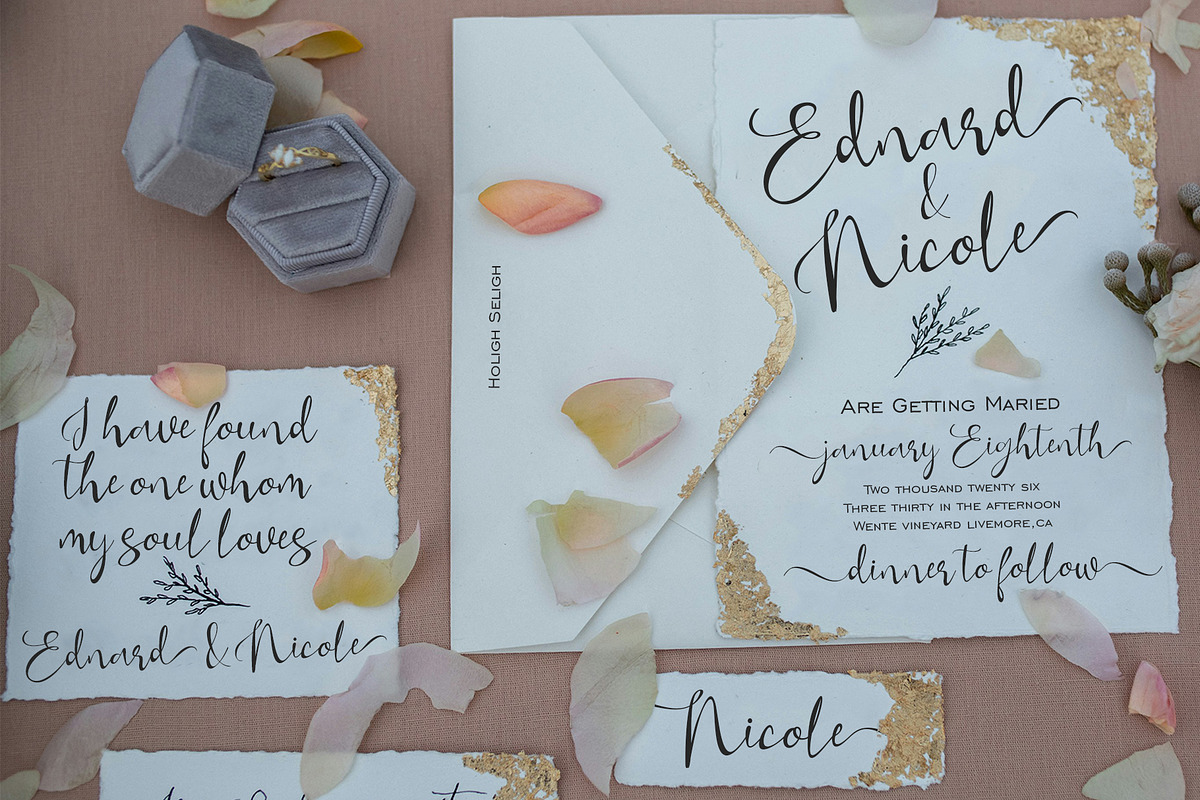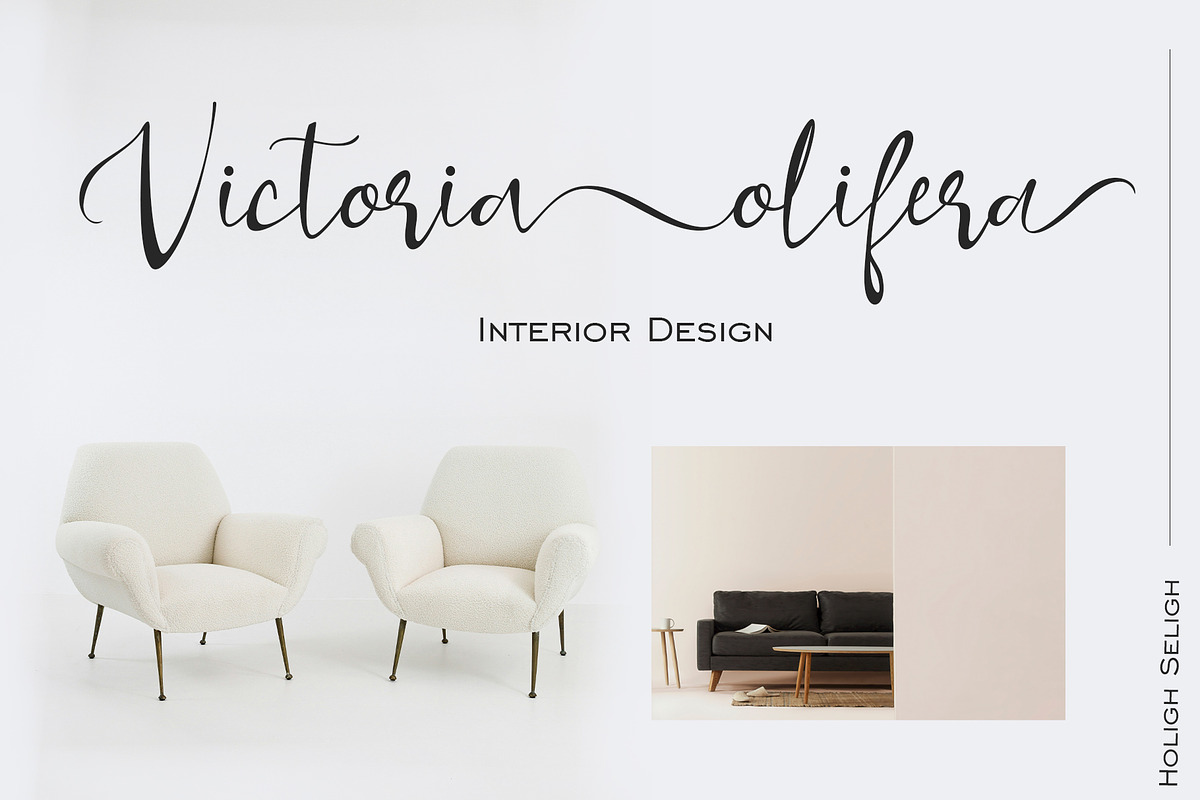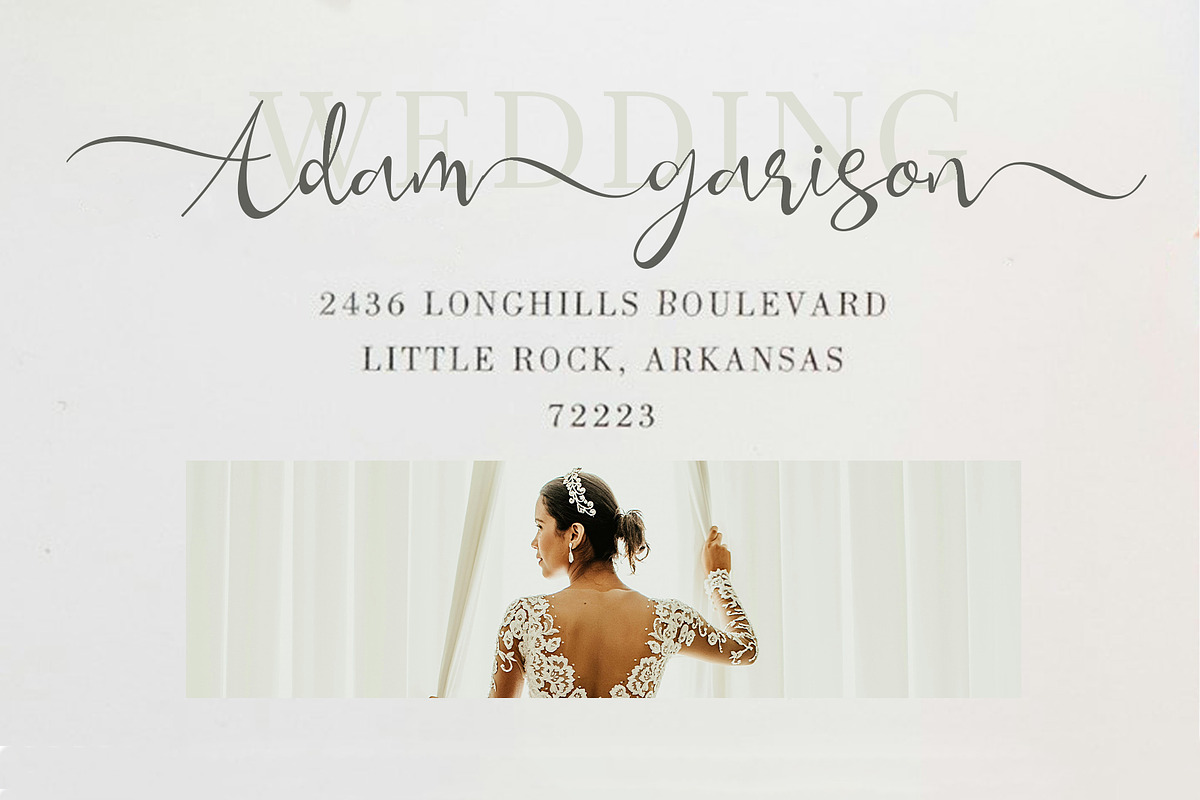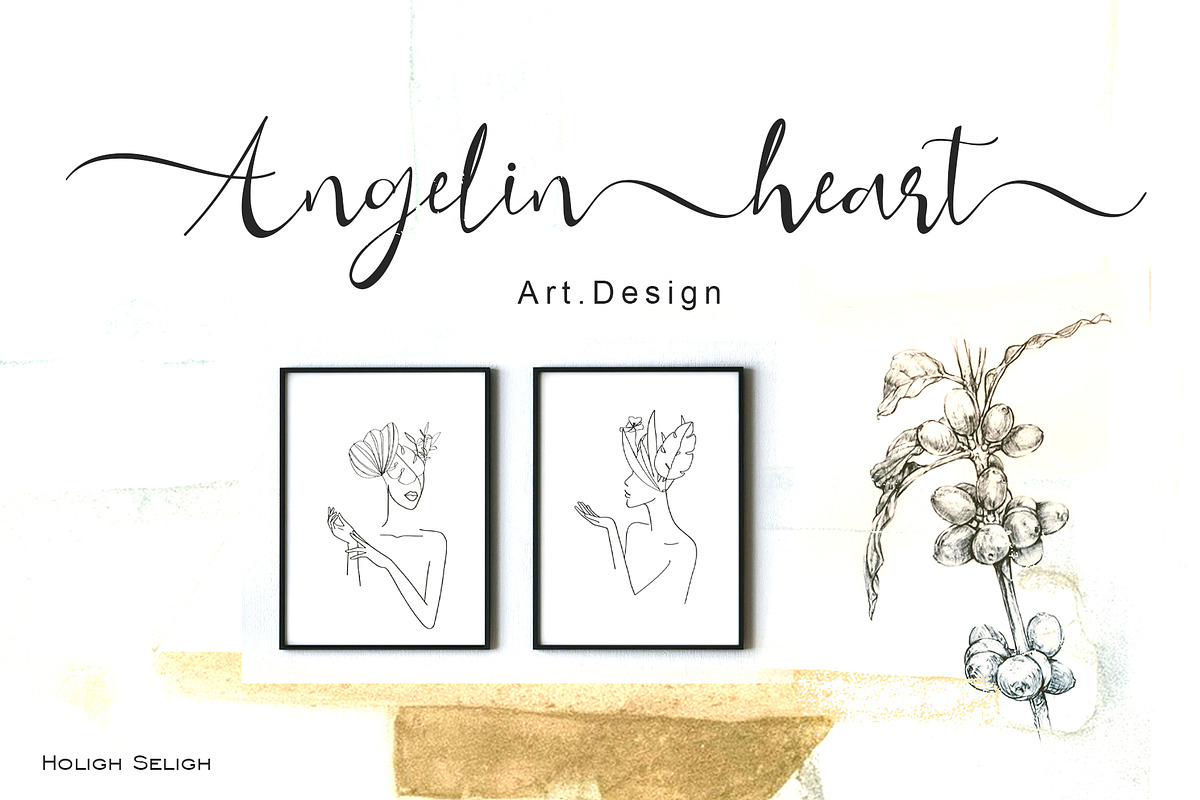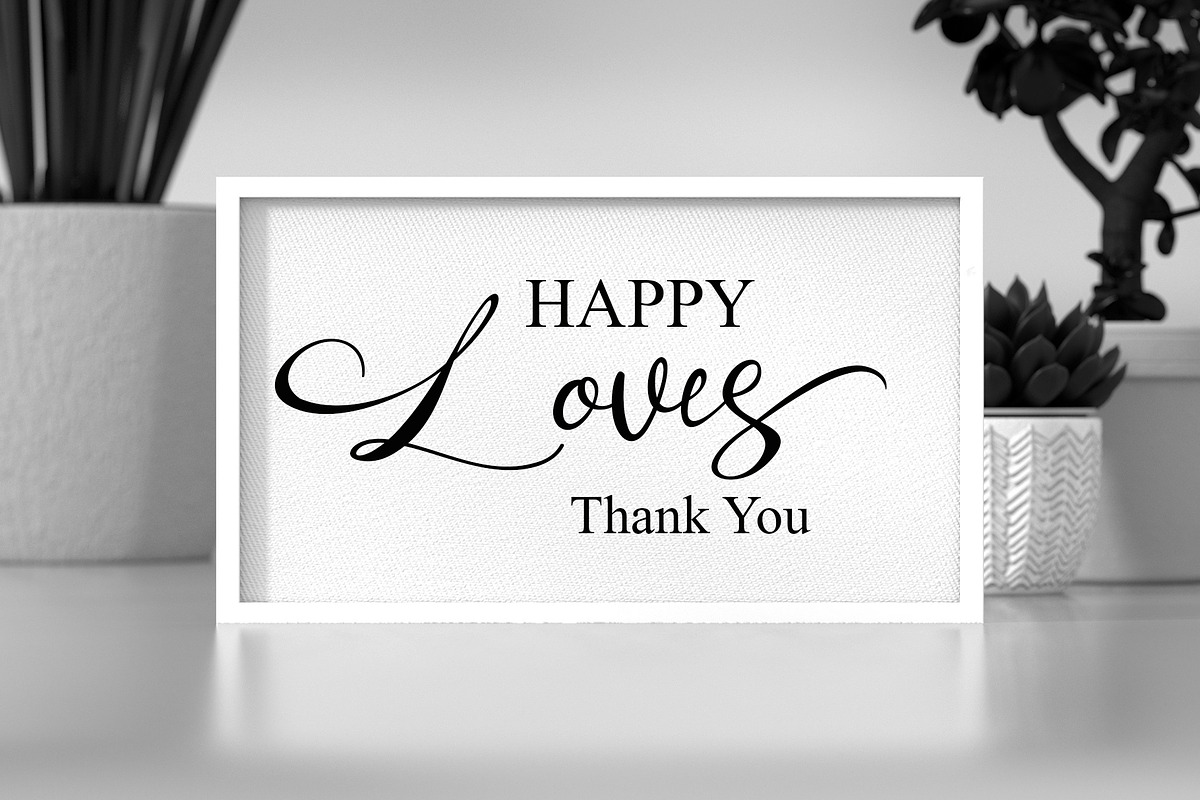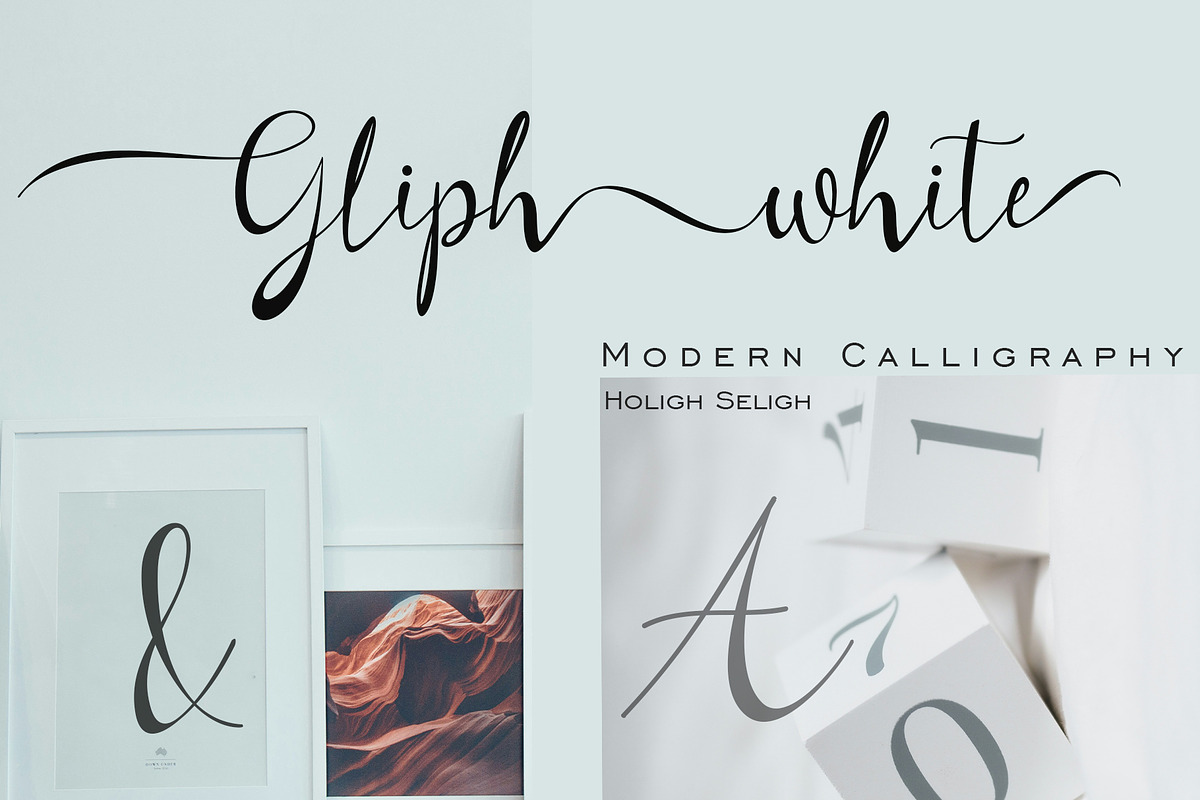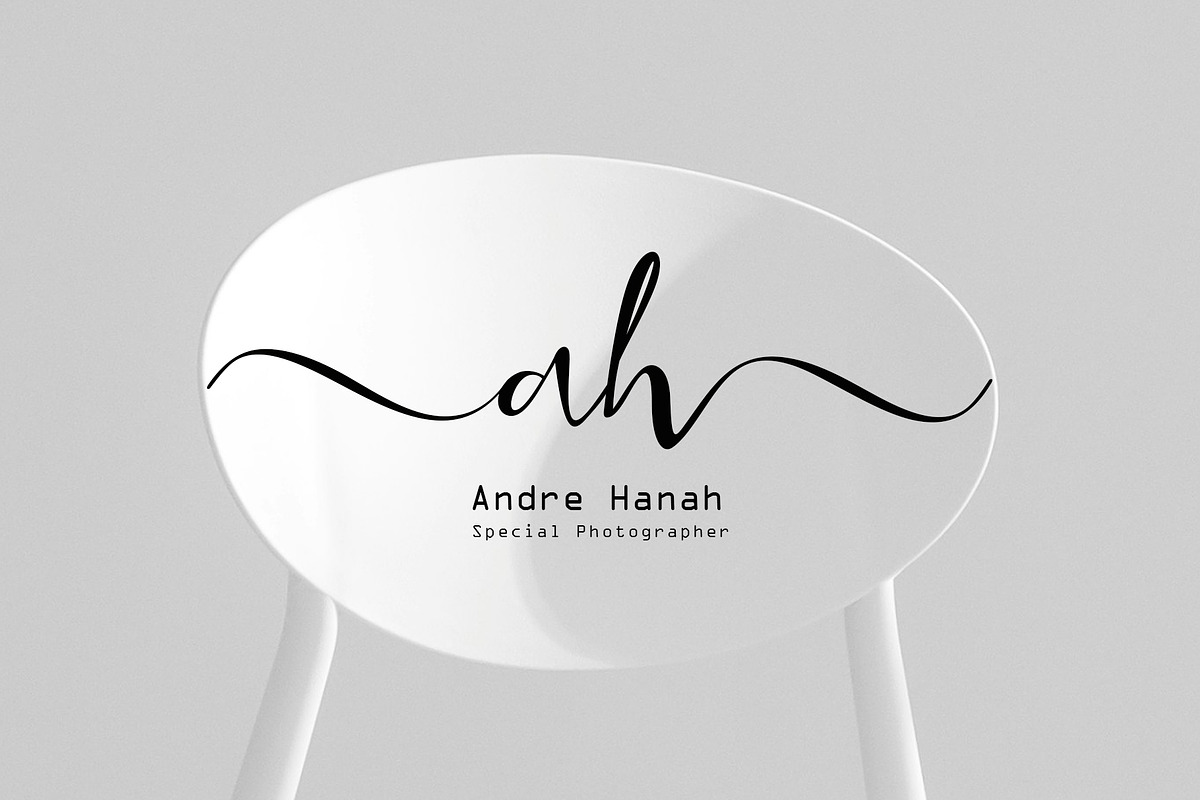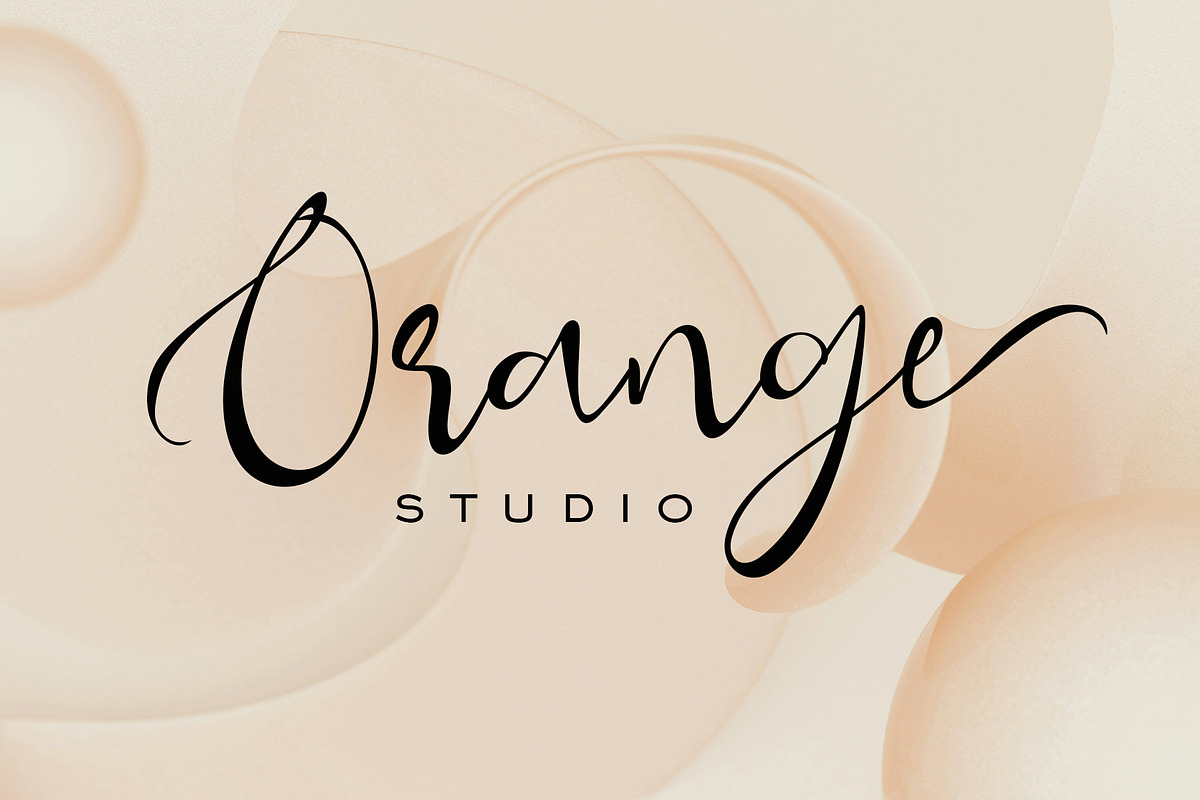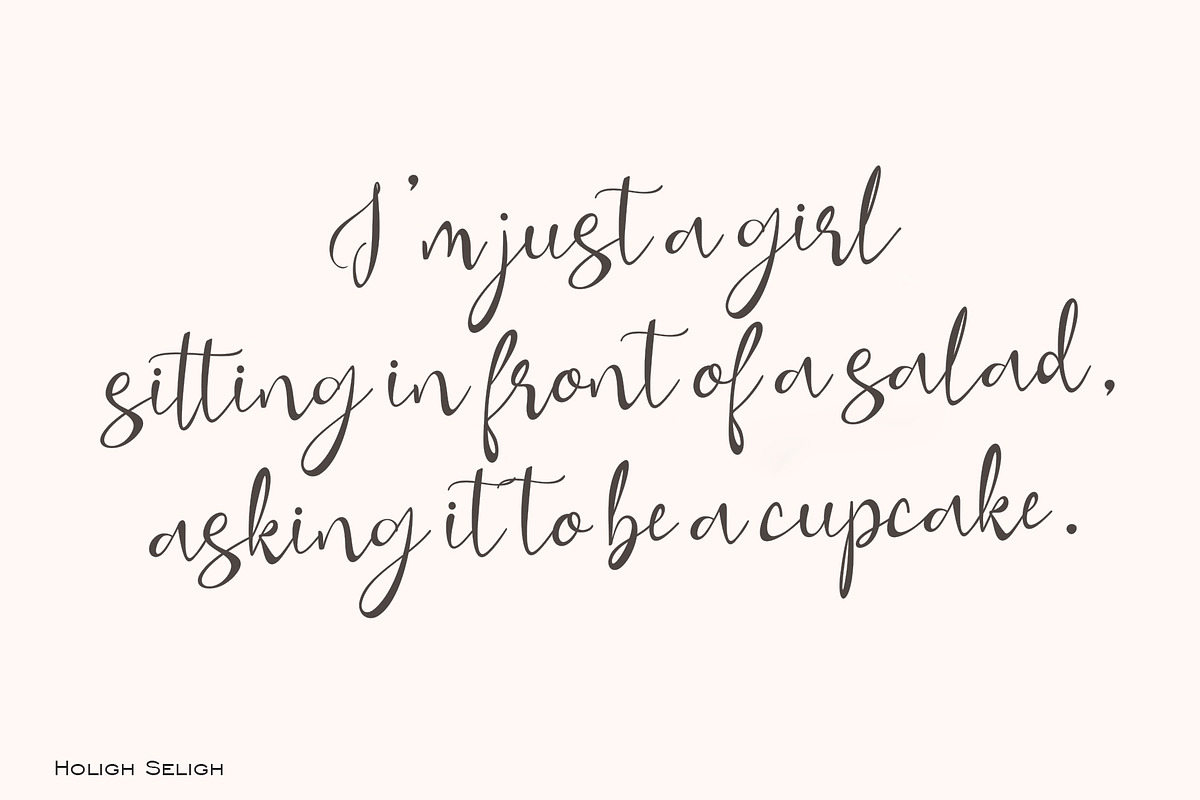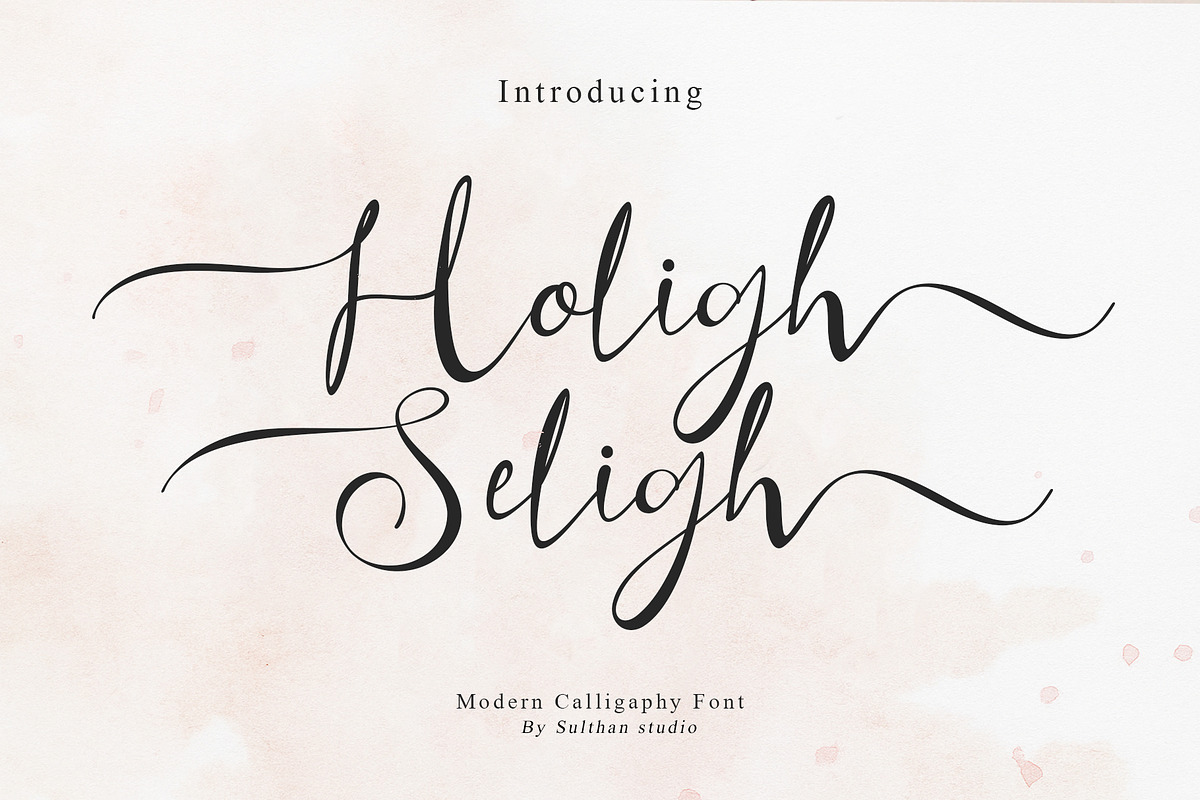
Holigh seligh
Elevate your designs with this unique calligraphy font, masterfully crafted to combine elegance with expressive charm. Featuring graceful swashes and flowing letterforms, this font brings a romantic and luxurious touch to invitations, branding, logos, social media, and more. Each character is carefully designed to maintain perfect balance and rhythm, while the decorative swashes add flair and personality without overwhelming the composition. Ideal for those who want to make a bold, artistic statement with a refined, hand-lettered style.